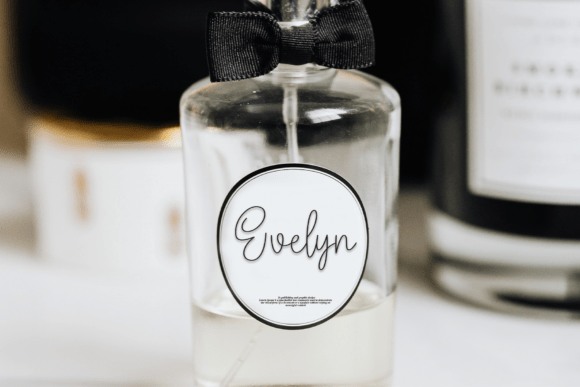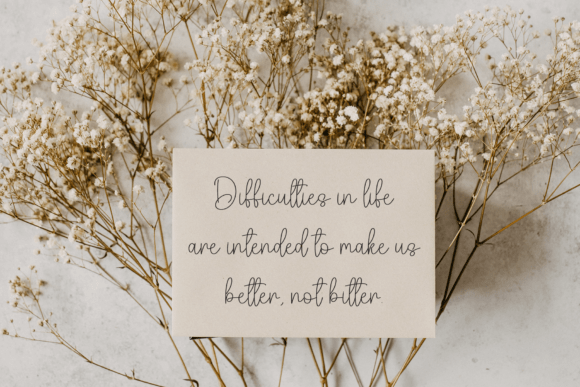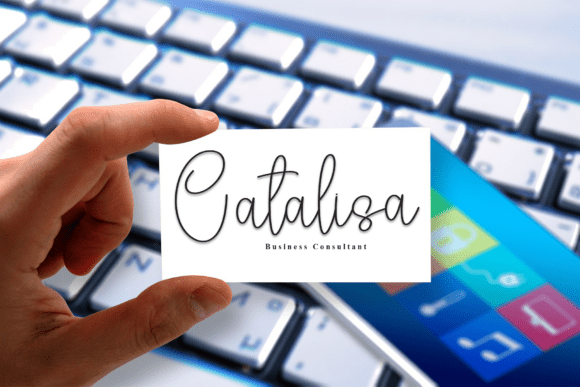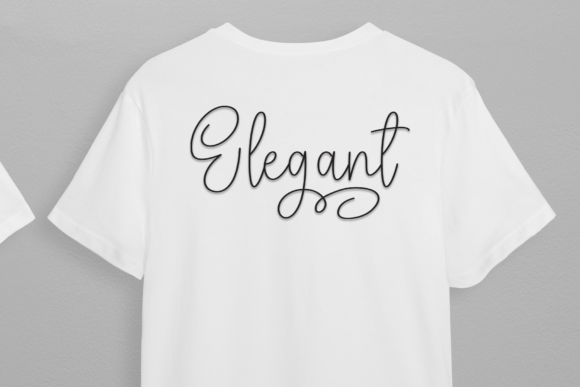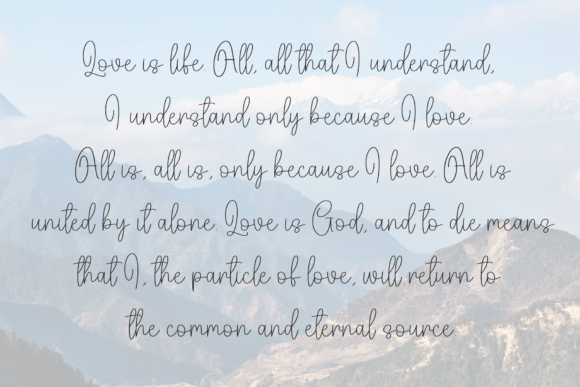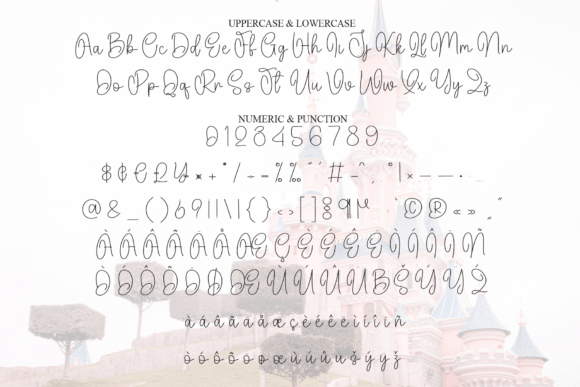
Add a Touch of Sophistication to Your Designs with Fairytail Font
Are you looking for a font that can add a touch of elegance and sophistication to your designs? Look no further than the Fairytail Font, a beautiful script font with swashes that is perfect for creating romantic and luxurious visuals. With its graceful, flowing lines and beautiful beginning and ending swashes, this font is sure to take your designs to the next level.
What is Fairytail Font?
Fairytail Font is a elegant script font that features beautiful swashes at the beginning and end of each letter. These swashes add an extra flourish to your designs, making them perfect for wedding invitations, branding projects, social media graphics, and handwritten quotes. The font is designed to be highly versatile, making it suitable for a wide range of design applications.
Key Features of Fairytail Font
- Elegant Script Font: Fairytail Font is a beautifully designed script font that features flowing lines and elegant letterforms.
- Swashes: The font includes beautiful beginning and ending swashes that add an extra touch of sophistication to your designs.
- Highly Versatile: Fairytail Font is suitable for a wide range of design applications, including wedding invitations, branding projects, social media graphics, and handwritten quotes.
Uses for Fairytail Font
Fairytail Font is a highly versatile font that can be used for a wide range of design applications. Here are some ideas for using this beautiful font:
- Wedding Invitations: Add a touch of elegance and sophistication to your wedding invitations with Fairytail Font.
- Branding Projects: Use Fairytail Font to create luxurious and high-end branding projects, such as logos, business cards, and letterheads.
- Social Media Graphics: Add a touch of elegance to your social media graphics, such as Instagram posts and Facebook covers.
- Handwritten Quotes: Use Fairytail Font to create beautiful handwritten quotes that are perfect for sharing on social media or printing out as art.
Tips for Using Fairytail Font
Here are some tips for getting the most out of Fairytail Font:
- Experiment with Different Sizes: Fairytail Font looks great in a variety of sizes, so don’t be afraid to experiment to find the perfect size for your design.
- Play with Swashes: The swashes in Fairytail Font are a key feature, so play around with different swash combinations to find the one that works best for your design.
- Pair with Other Fonts: Fairytail Font pairs well with a variety of other fonts, so try pairing it with a sans-serif font for a bold and elegant look.
Fairytail Font is a beautiful and elegant script font with swashes that is perfect for adding a touch of sophistication to your designs. With its highly versatile design and easy-to-use features, this font is sure to become a favorite among designers and crafters. Whether you’re creating wedding invitations, branding projects, social media graphics, or handwritten quotes, Fairytail Font is the perfect choice.